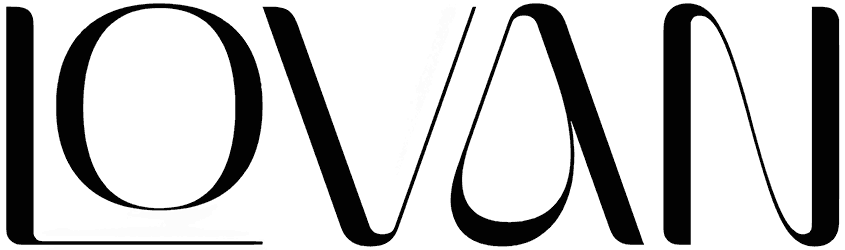
Zesant Font
Zesant can create a strong and lasting emotional connection with formal and robust categories that make the designer’s job easy to evoke the audience’s emotions. This sans-serif font has raised letters suitable for projects with a high level of legibility.
With this yoga font in the collection, you will have a significant element that you can easily use when you need it. Book writings, websites, packaging, and posters are places where Zesant can stand out.